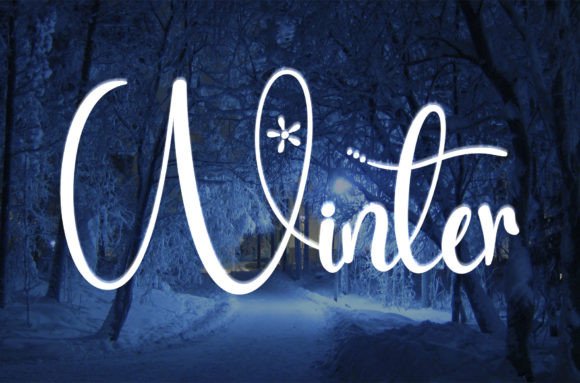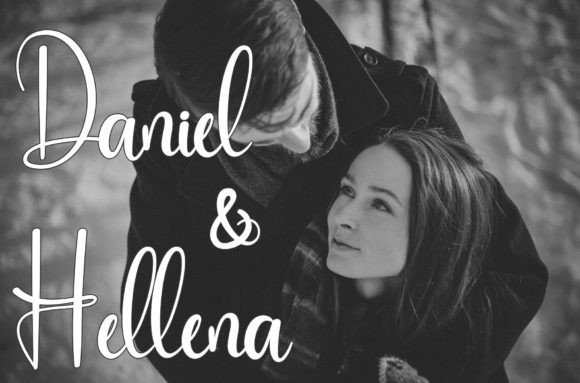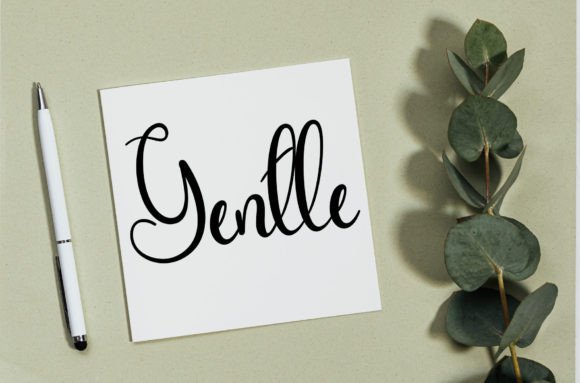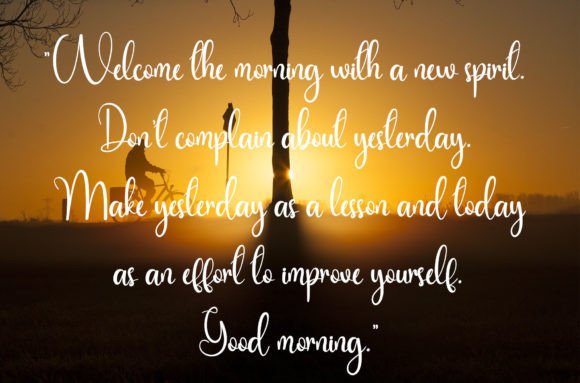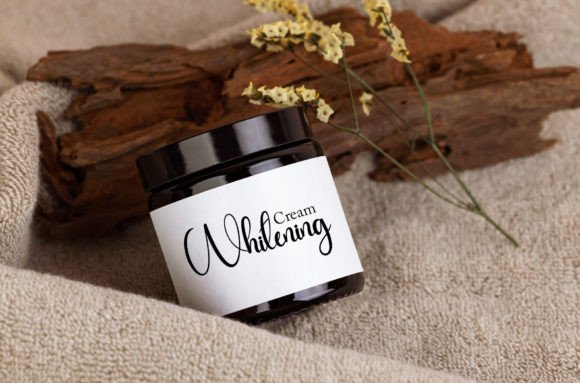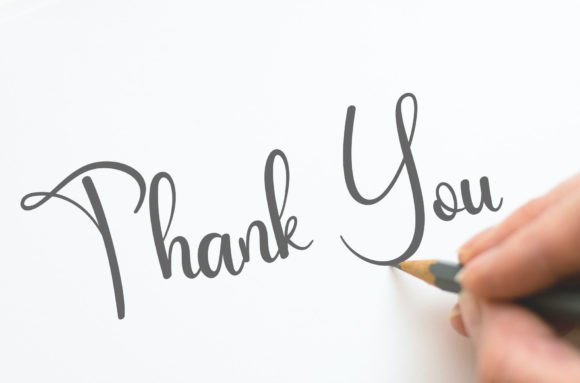
Winter Font
“Winter” is a lovely and timeless handwritten font that stands out as the ideal choice for creating eye-catching logos, branding elements, and quotes. The font’s charm lies in its timeless appeal, making it a versatile and enduring option for various design projects.
Each letter in “Winter” is carefully crafted, bearing a unique and beautiful touch that adds a special quality to your design. This attention to detail ensures that every character contributes to making your design come alive with a distinctive and engaging aesthetic.
The versatility of “Winter” makes it suitable for a range of applications, with a particular emphasis on creating logos, establishing branding elements, and featuring impactful quotes. Its handwritten style adds a personal and authentic feel, enhancing the overall visual appeal of your design projects.
In the realm of logos, “Winter” brings a touch of elegance and uniqueness, helping your brand stand out. For branding materials, the font’s timeless quality ensures a design that remains relevant and appealing over time. Additionally, when used for quotes, “Winter” adds a charming and memorable aspect to the text.
In summary, “Winter” is more than just a font; it’s a lovely and timeless design tool that enhances the beauty of your logos, branding, and quotes. Its unique and beautiful touch ensures that every letter contributes to a vibrant and captivating design, making “Winter” an excellent choice for a variety of creative endeavors.